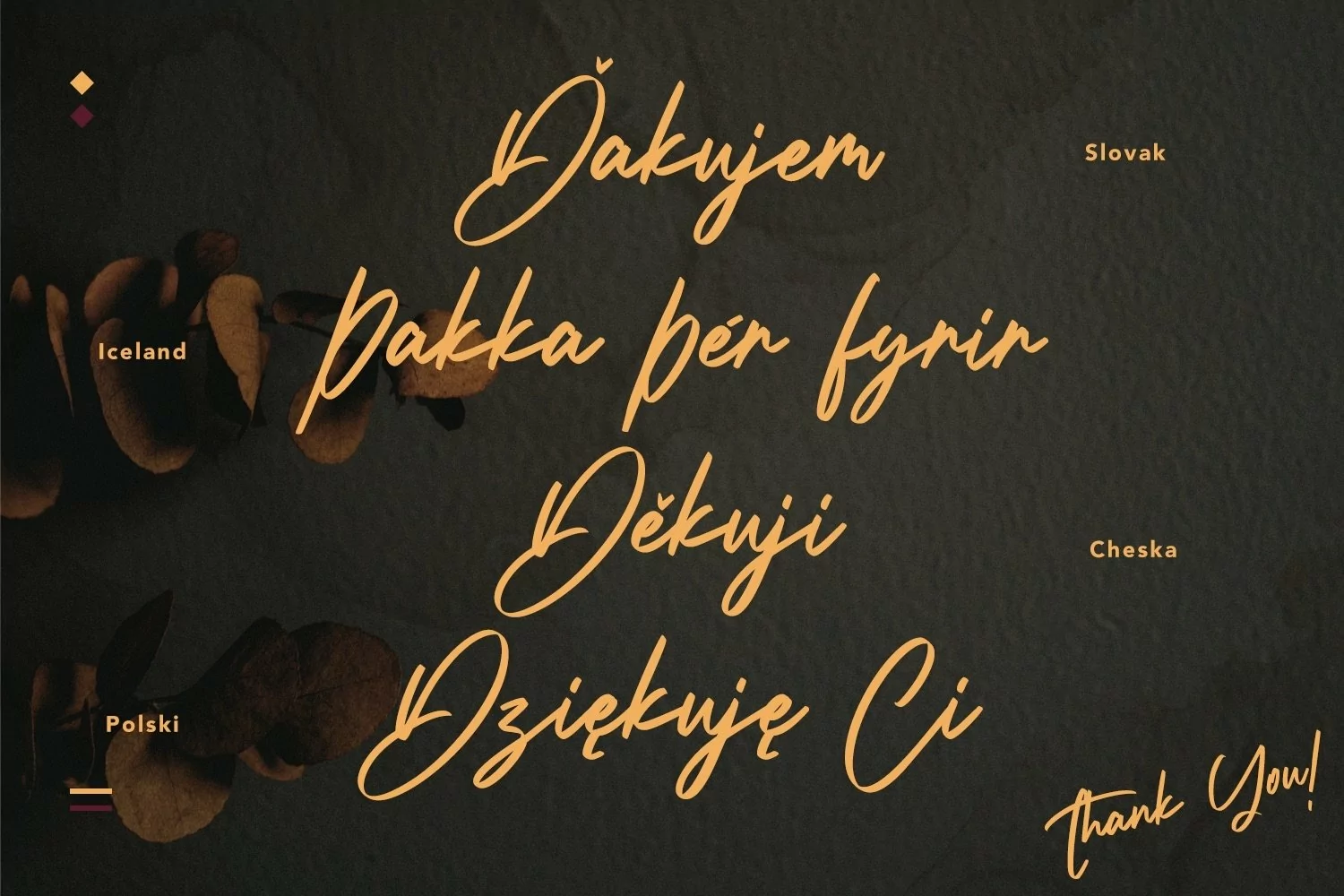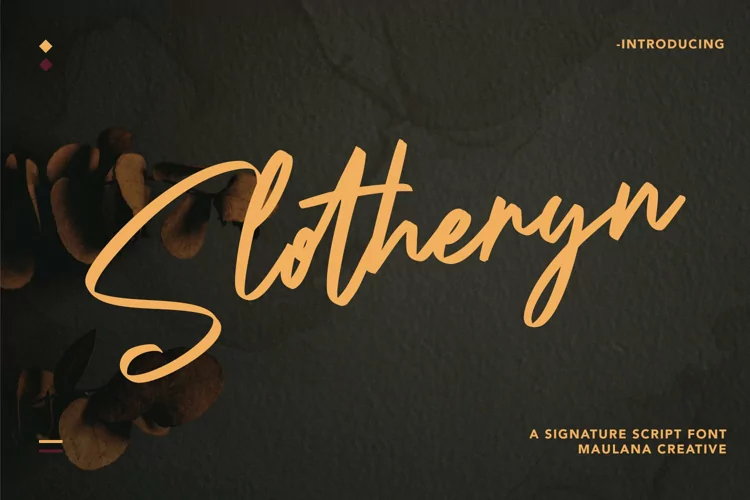
Slotheryn Signature Script Font
Give your designs an authentic handcrafted feel. Slotheryn Signature Script Font is perfectly suited to logo, stationery, branding, typography quotes, magazine or book cover, website header, clothing, branding, packaging design, restaurant and more.